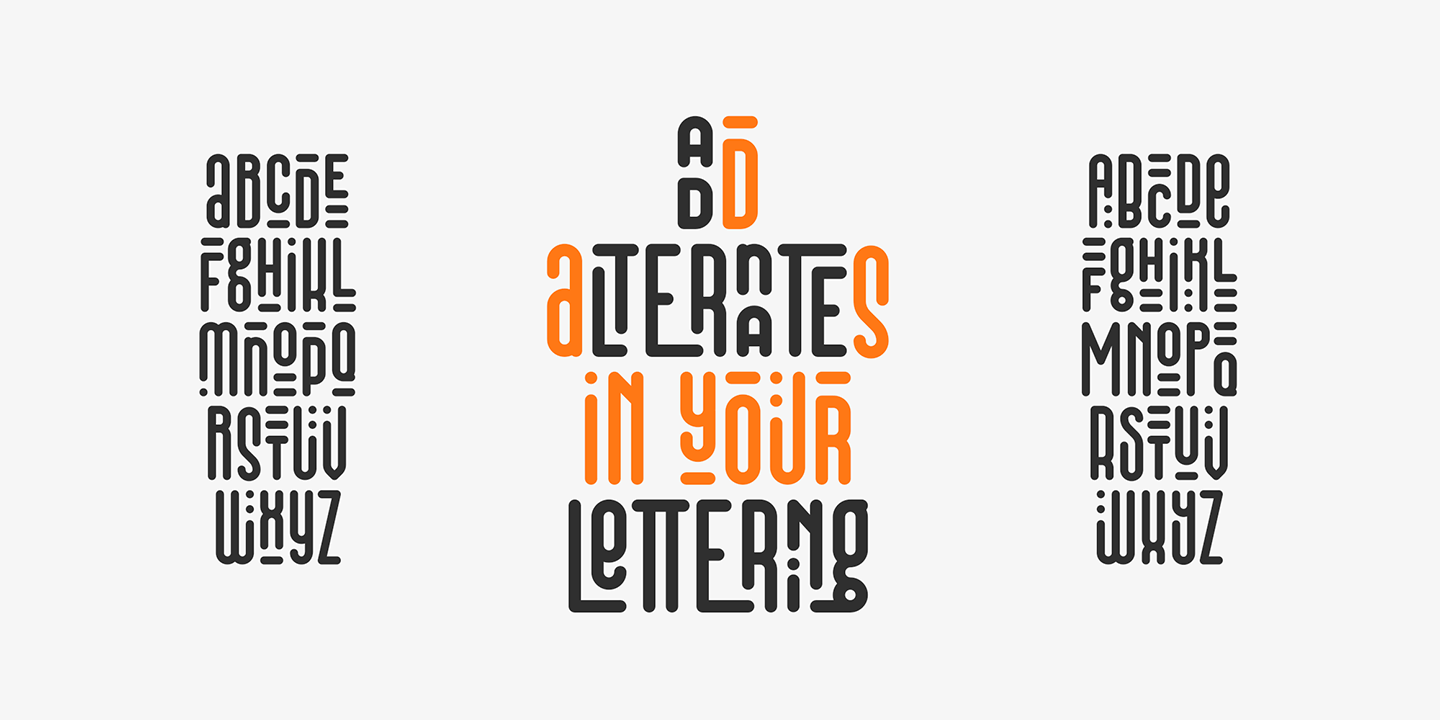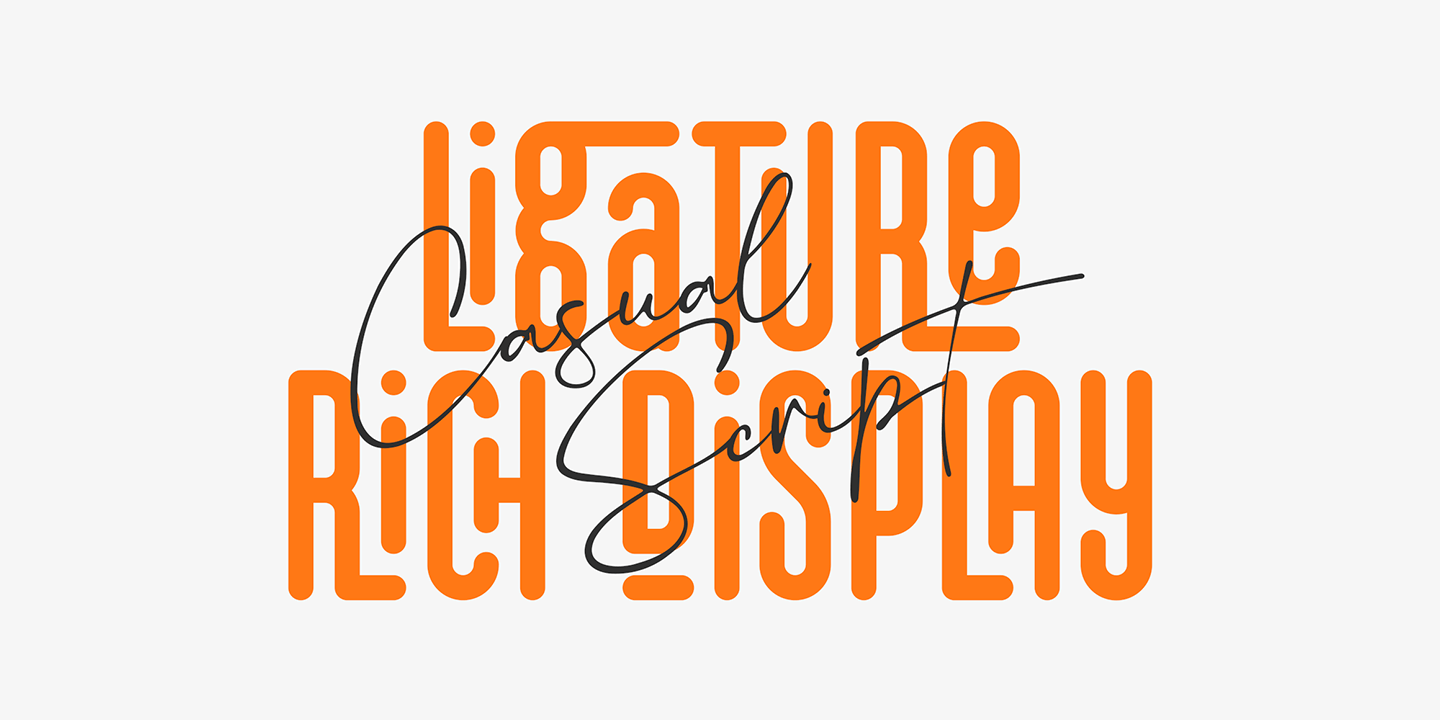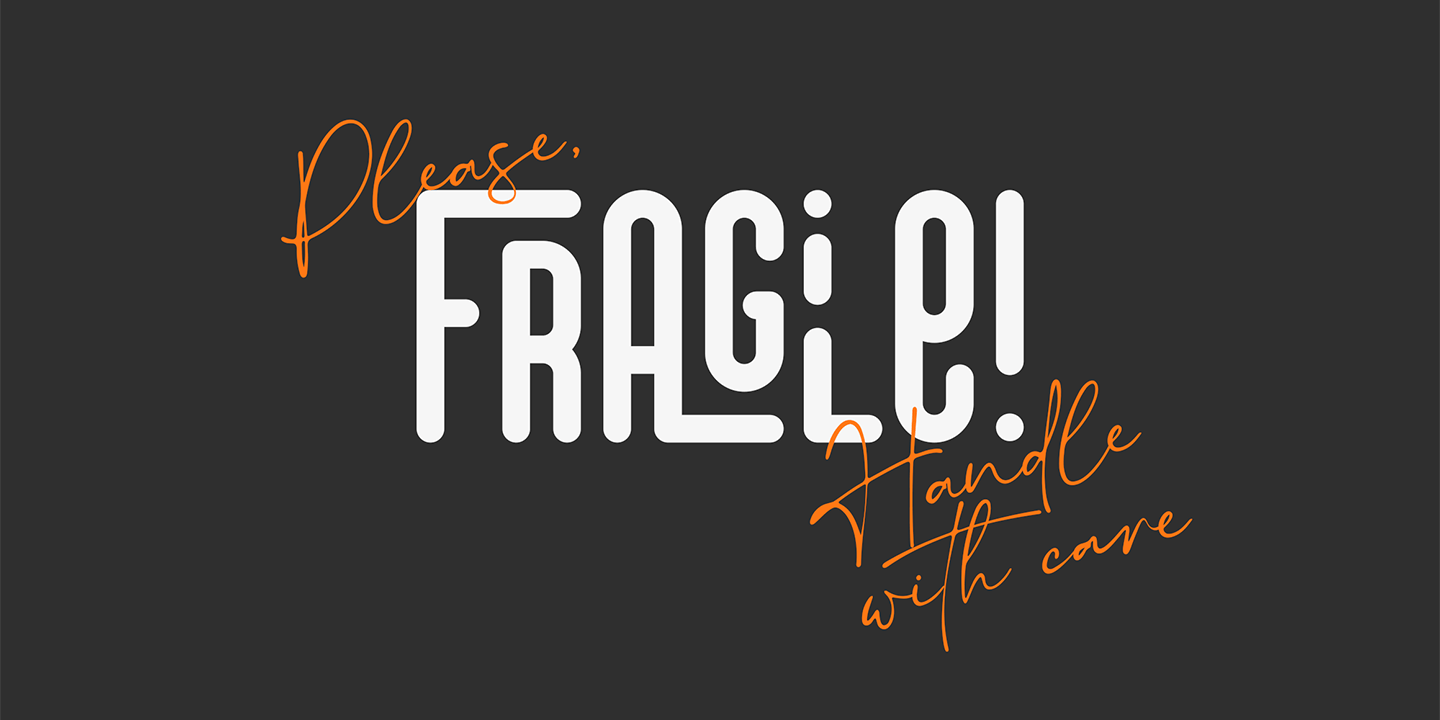
About That Appeal
Introducing "That Appeal" – The Ultimate Font Duo for Diverse Creations! Dive into the world of typography with "That Appeal", a striking font duo that brilliantly combines versatility and style. This unique pairing features two complementary…